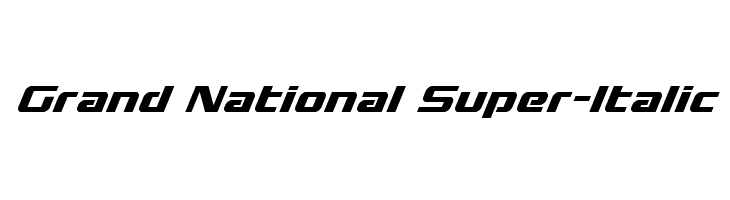
Chaque police phare se distingue par équilibre, lisibilité et polyvalence. Vous trouverez des sans‑serifs modernes, des scripts élégantes, des serifs vintage et des displays minimalistes.
A sleek, elongated, and oblique font with fine lines and a modern aesthetic.
A bold, three-dimensional font with a shadow effect, ideal for impactful headlines.
A bold, playful font with a hand-drawn, artistic style.
A refined, elegant serif font with a light, italic style.
A bold, decorative font with stars and stripes, inspired by the American flag.
Hand-drawn, sketchy font ideal for mockups and informal designs.
A bold, shadowed font with a vintage and dramatic style.
A playful, handwritten script font with fluid connections and a casual vibe.
Modern sans-serif with high contrast.
A tall, narrow, and modern font with thin strokes and a sleek appearance.
An elegant, high-contrast font with decorative elements and modern flair.
A modern, italicized font with sleek, consistent strokes and a dynamic appearance.
A smooth, flowing script font with elegant, connected letters.
A flowing, cursive font with elegant loops and smooth transitions.
A playful, bold font with rounded, thick strokes and a whimsical touch.
A modern, shadowed font with tall, narrow characters and a three-dimensional effect.
Bold and italic font with a modern, dynamic style.
A bold, playful font with a hand-drawn, irregular style.
A modern, elegant sans-serif font with sleek, elongated characters.
A bold, italicized font with a futuristic and dynamic style.
Not a font; illustrated cat artwork.
A bold, handwritten font with a casual and playful style.
A bold, shattered glass effect font with fragmented, edgy characters.
A modern sans-serif font with clean lines and a professional appearance.